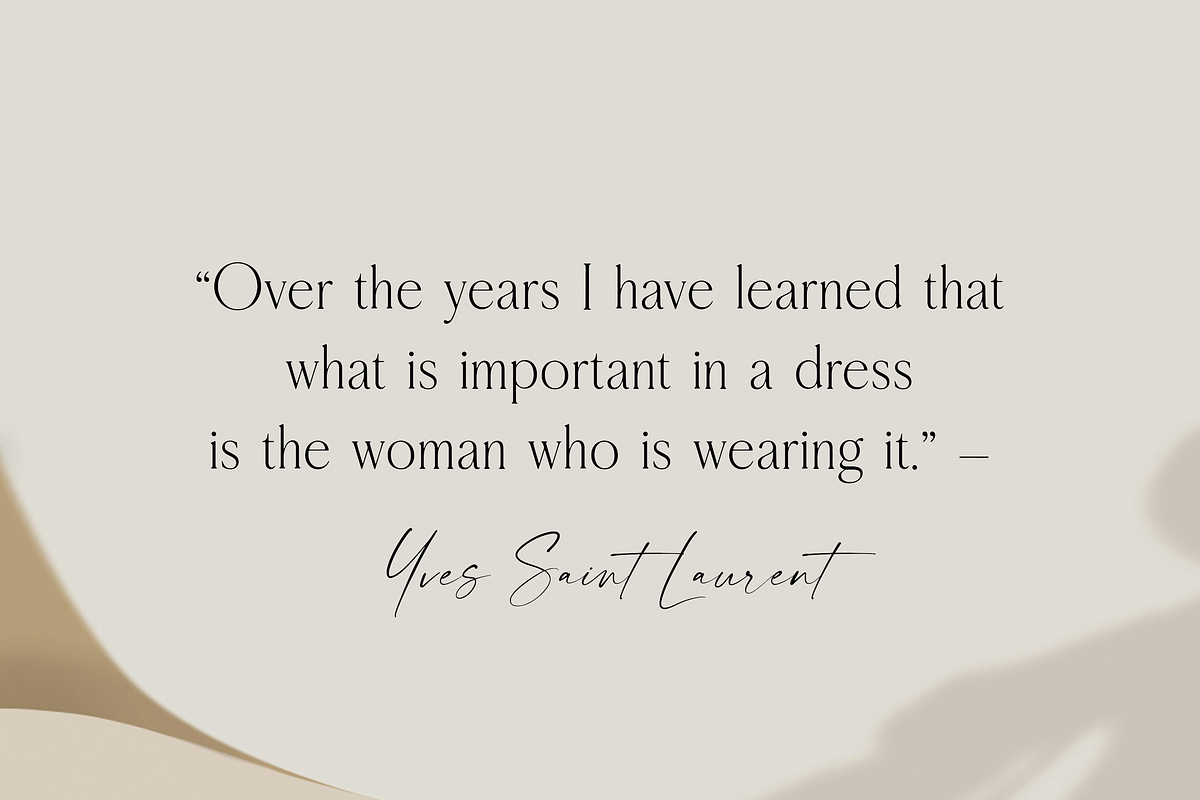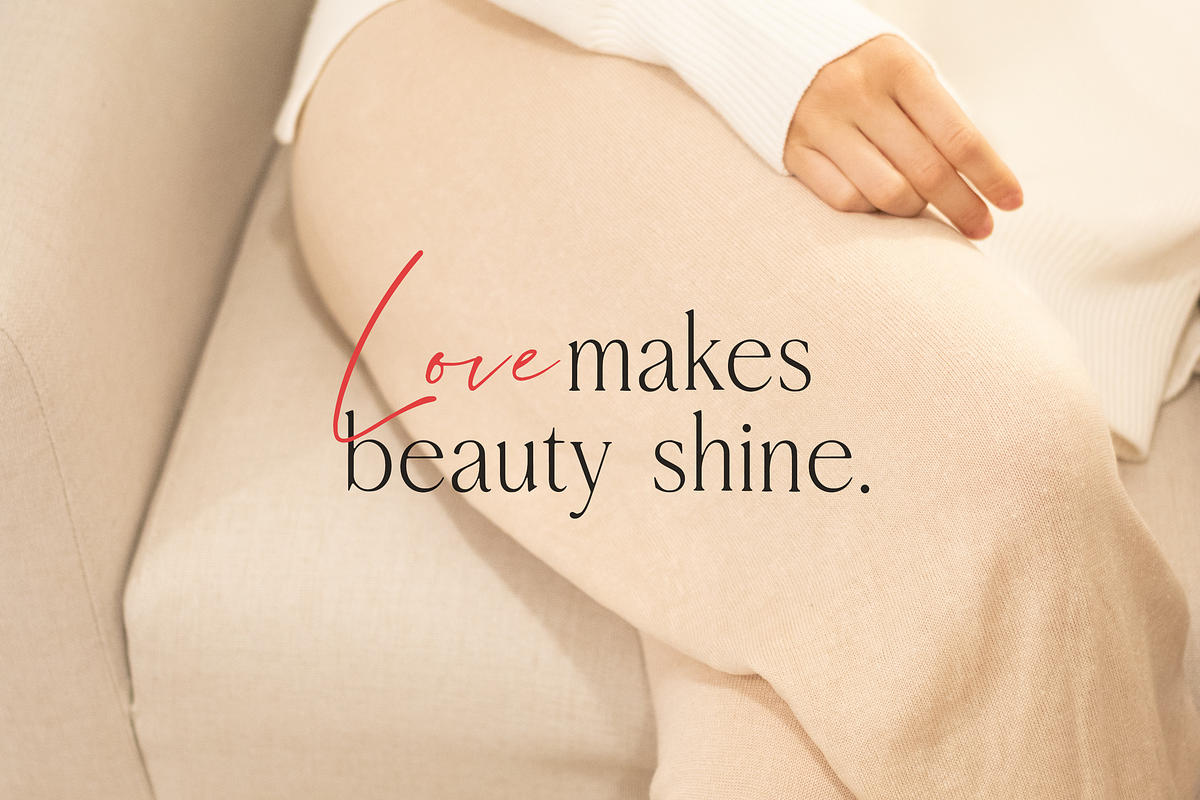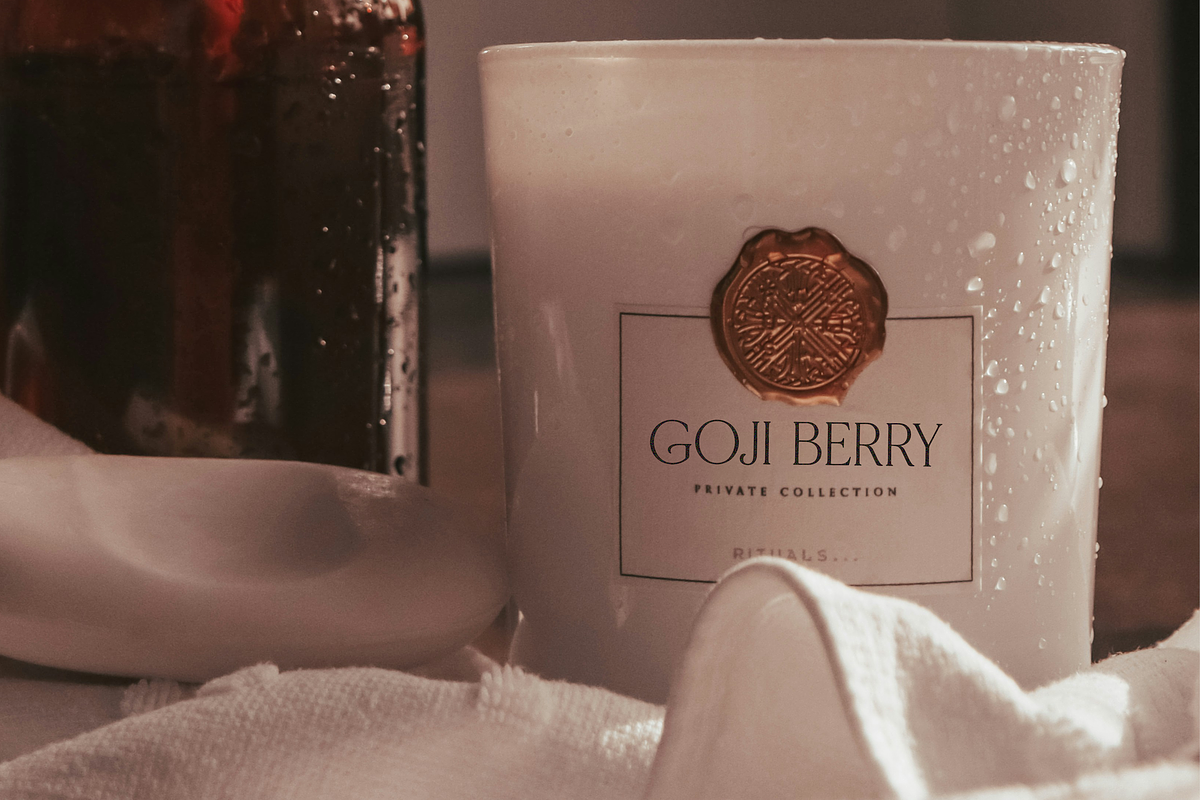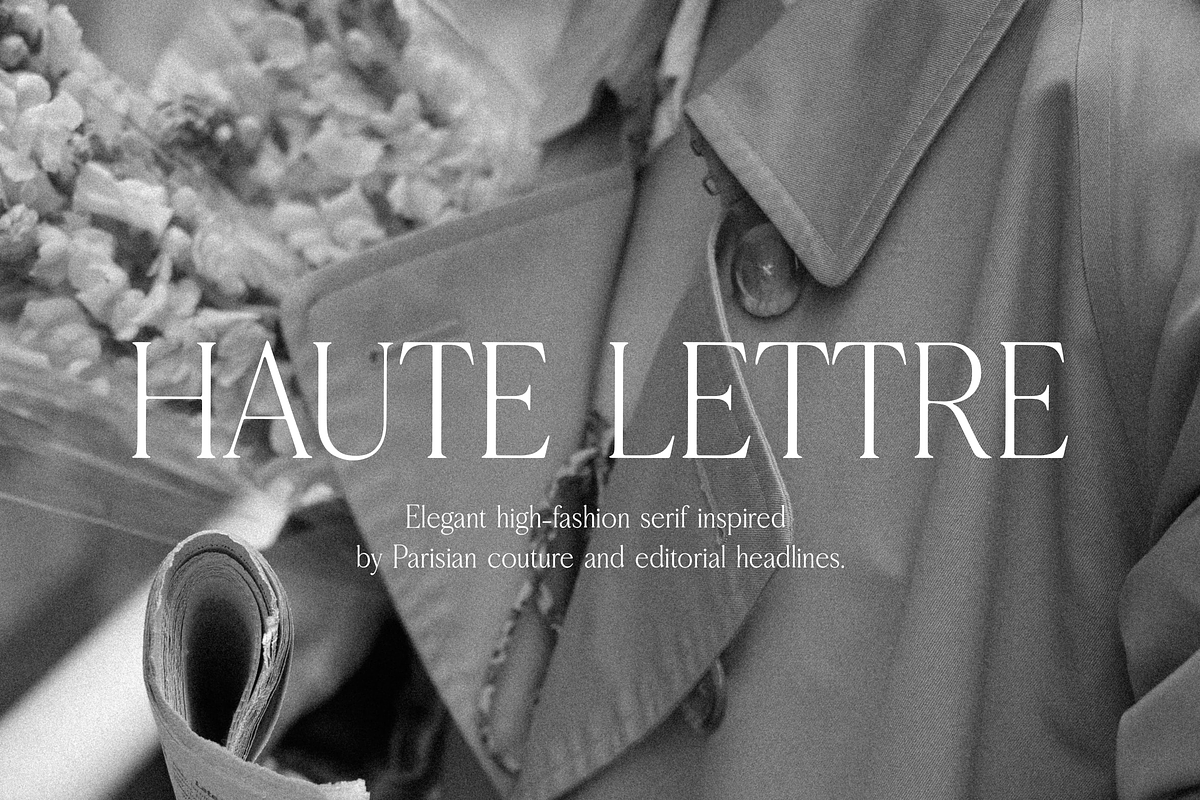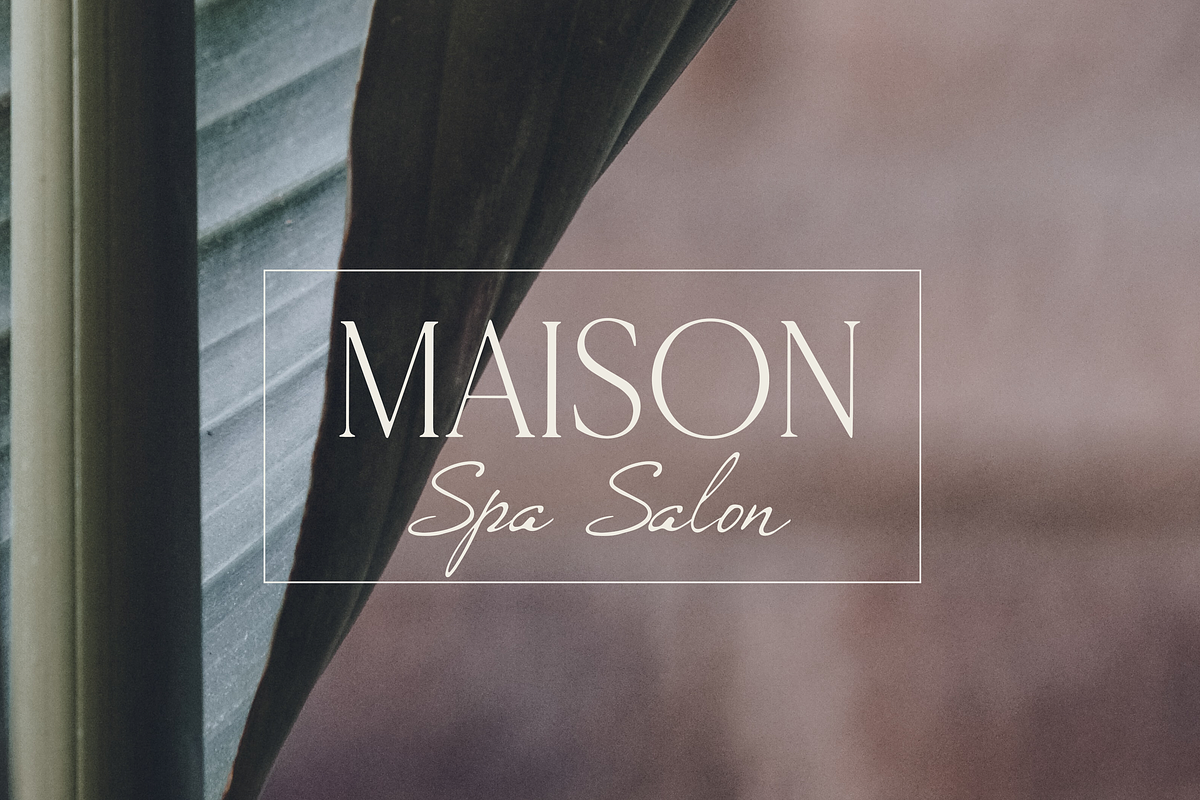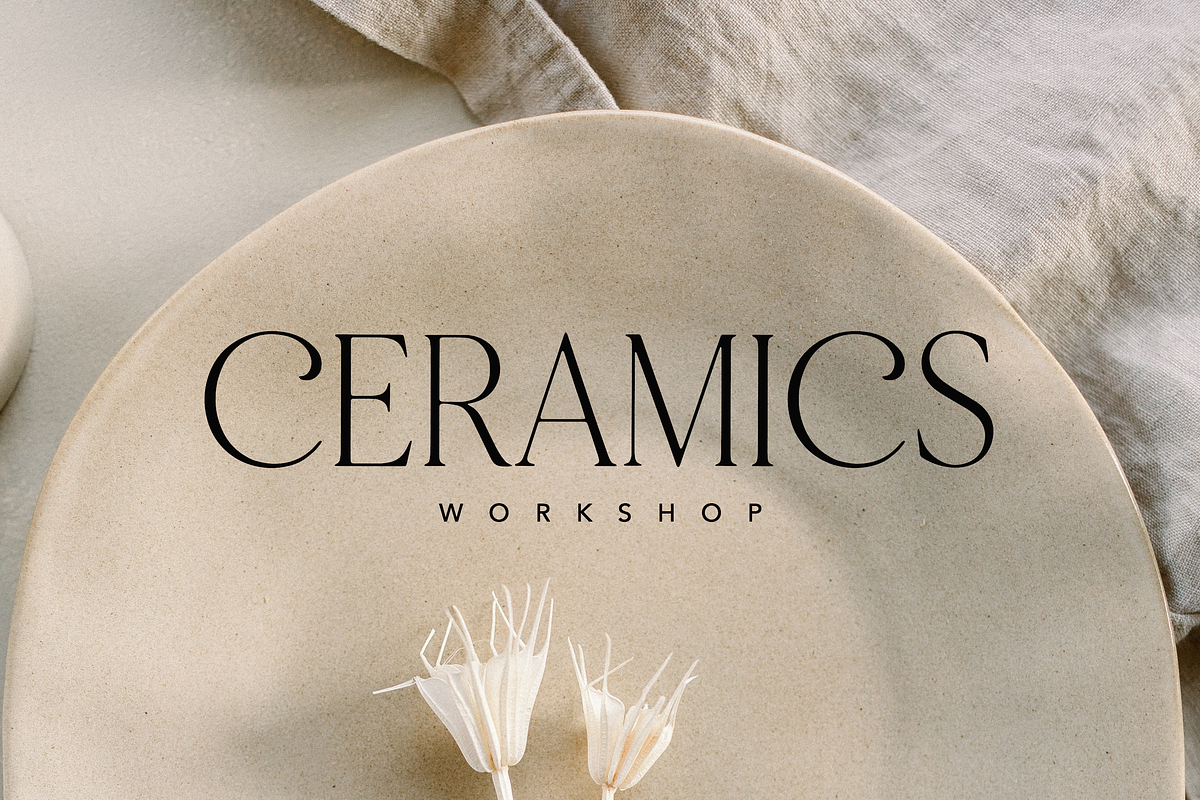
Haute Lettre Serif
Haute Lettre is an elegant high-fashion serif inspired by couture and editorial typography. Perfect for luxury branding, logos, and premium packaging.